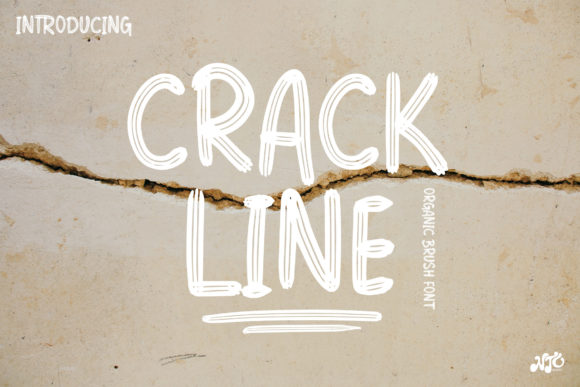
Crack Line Font: Elevate Your Designs with a Fun and Friendly Display Font
In the world of design, fonts play a crucial role in conveying the tone and personality of a project. Whether you’re working on a branding campaign, a social media graphic, or a crafting project, the right font can make all the difference. That’s where Crack Line Font comes in – a fun and friendly display font that’s sure to make your creations stand out from the crowd.
What is Crack Line Font?
Crack Line Font is a unique and eye-catching display font that’s perfect for designers and crafters looking to add a touch of personality to their work. With its simple yet strong visual effect, this font is designed to instantly elevate your creations and make them more appealing than others. The font’s playful, friendly vibe makes it ideal for a wide range of projects, from fun and quirky designs to more professional and sophisticated ones.
Key Features of Crack Line Font
- Fun and Friendly: Crack Line Font has a playful and approachable vibe that’s perfect for designs that need a touch of personality.
- Simple yet Impactful: The font’s simple design belies its strong visual effect, making it perfect for creating eye-catching headlines and titles.
- Versatile: Crack Line Font is suitable for a wide range of projects, from digital designs to print materials, and can be used for both personal and commercial purposes.
- Easy to Read: Despite its playful design, Crack Line Font is easy to read, even at smaller sizes, making it perfect for use in a variety of contexts.
How to Use Crack Line Font
Crack Line Font is incredibly easy to use, even for designers who are new to working with fonts. Here are a few tips to get you started:
- Pair it with Other Fonts: Crack Line Font pairs well with a variety of other fonts, making it easy to create visually appealing combinations.
- Experiment with Sizes: Don’t be afraid to experiment with different sizes and scales to create visual interest and hierarchy in your designs.
- Use it for Headlines: Crack Line Font is perfect for creating eye-catching headlines and titles that will grab the attention of your audience.
Design and Crafting Applications
Crack Line Font is a versatile font that can be used in a wide range of design and crafting applications, including:
- Branding and Advertising: Use Crack Line Font to create eye-catching logos, business cards, and advertising materials that will help your brand stand out.
- Social Media Graphics: Crack Line Font is perfect for creating social media graphics that will grab the attention of your followers and help your content stand out.
- Crafting and DIY Projects: Add a touch of personality to your crafting and DIY projects with Crack Line Font, perfect for use on signs, labels, and other materials.
Crack Line Font is a fun and friendly display font that’s perfect for designers and crafters looking to add a touch of personality to their work. With its simple yet strong visual effect, this font is sure to instantly elevate your creations and make them more appealing than others. Whether you’re working on a branding campaign, a social media graphic, or a crafting project, Crack Line Font is a versatile and easy-to-use font that’s sure to become a favorite in your design arsenal.
Get Creative with Crack Line Font